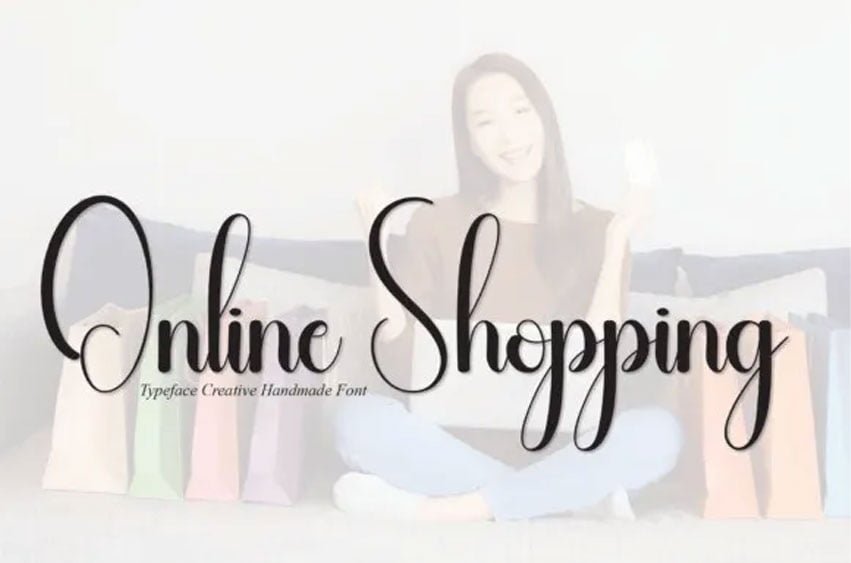
Online Shopping Font is a sweet and friendly handwritten font. Fresh and neat, this font is ideal for writing wedding invitations, cards, or any other design that might need a fun touch!